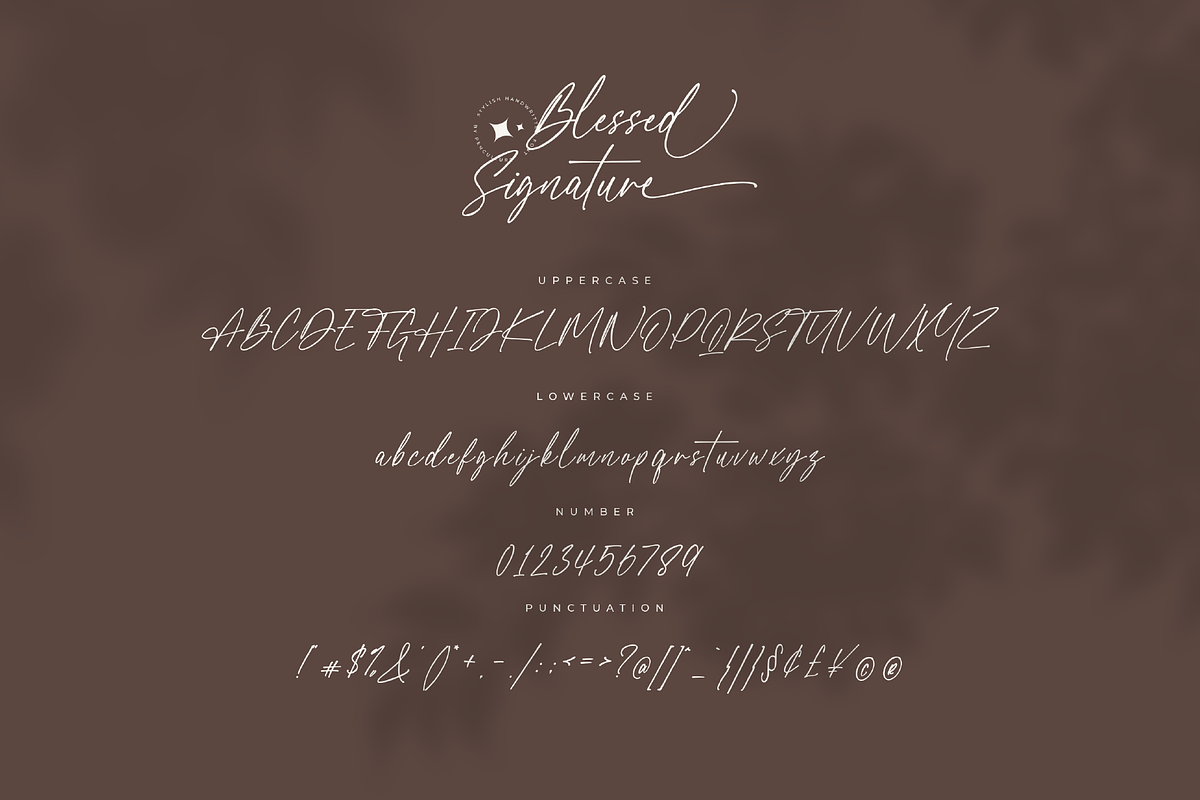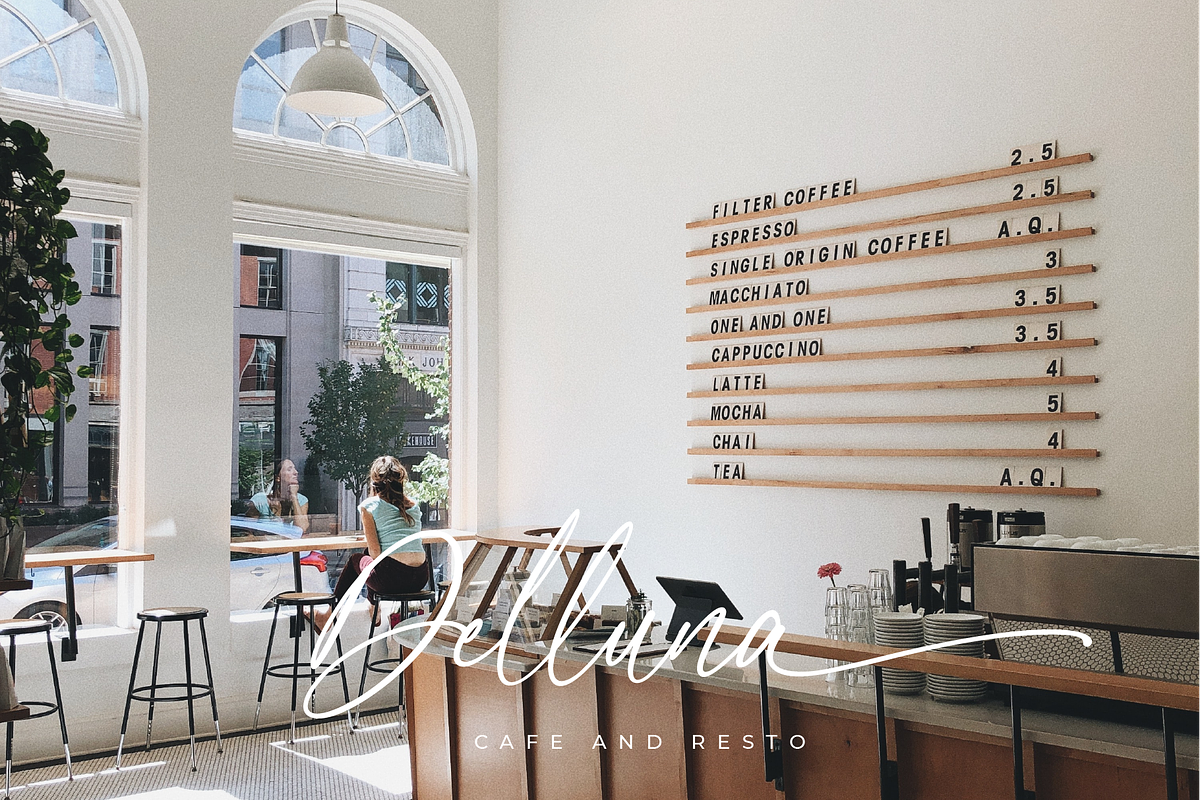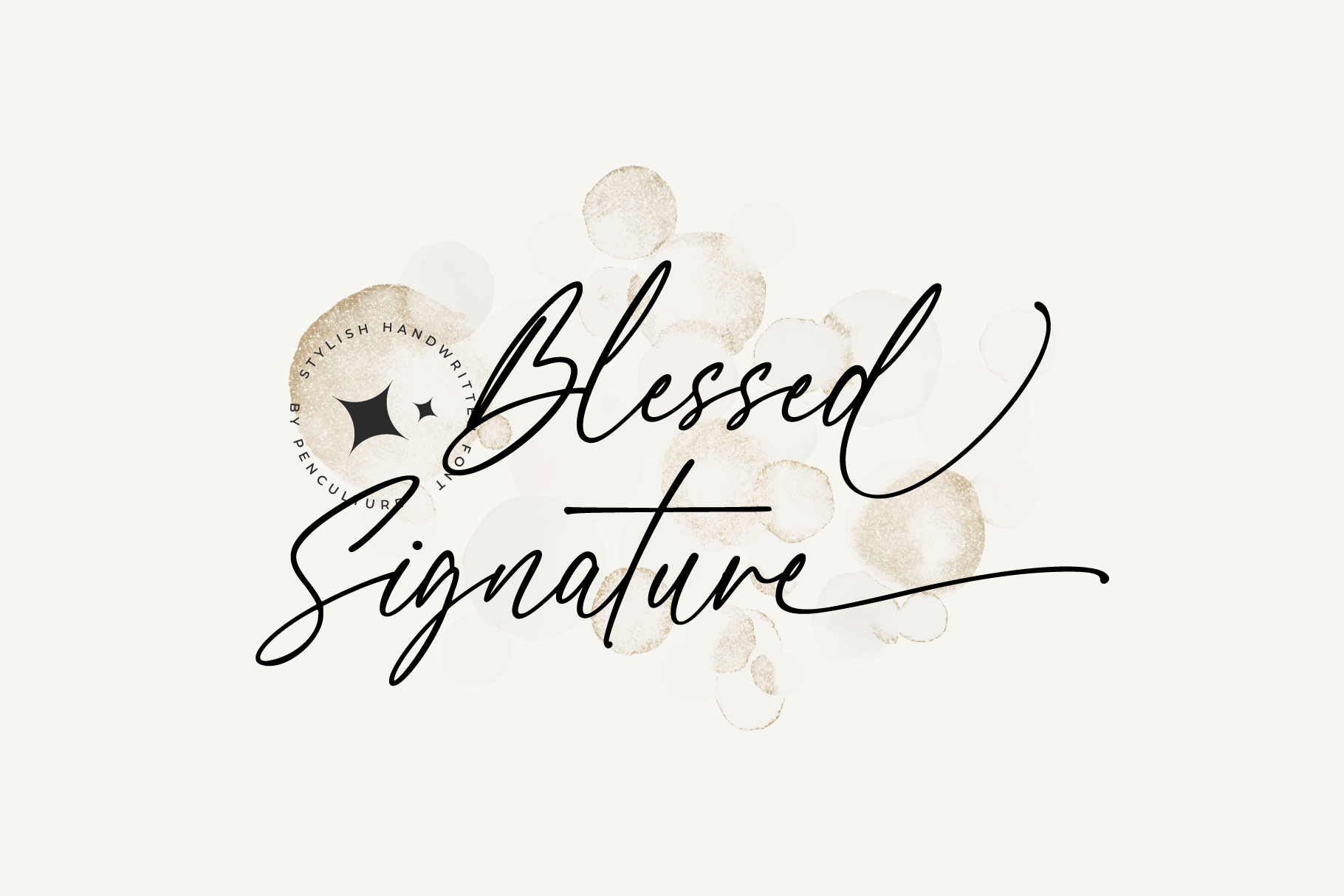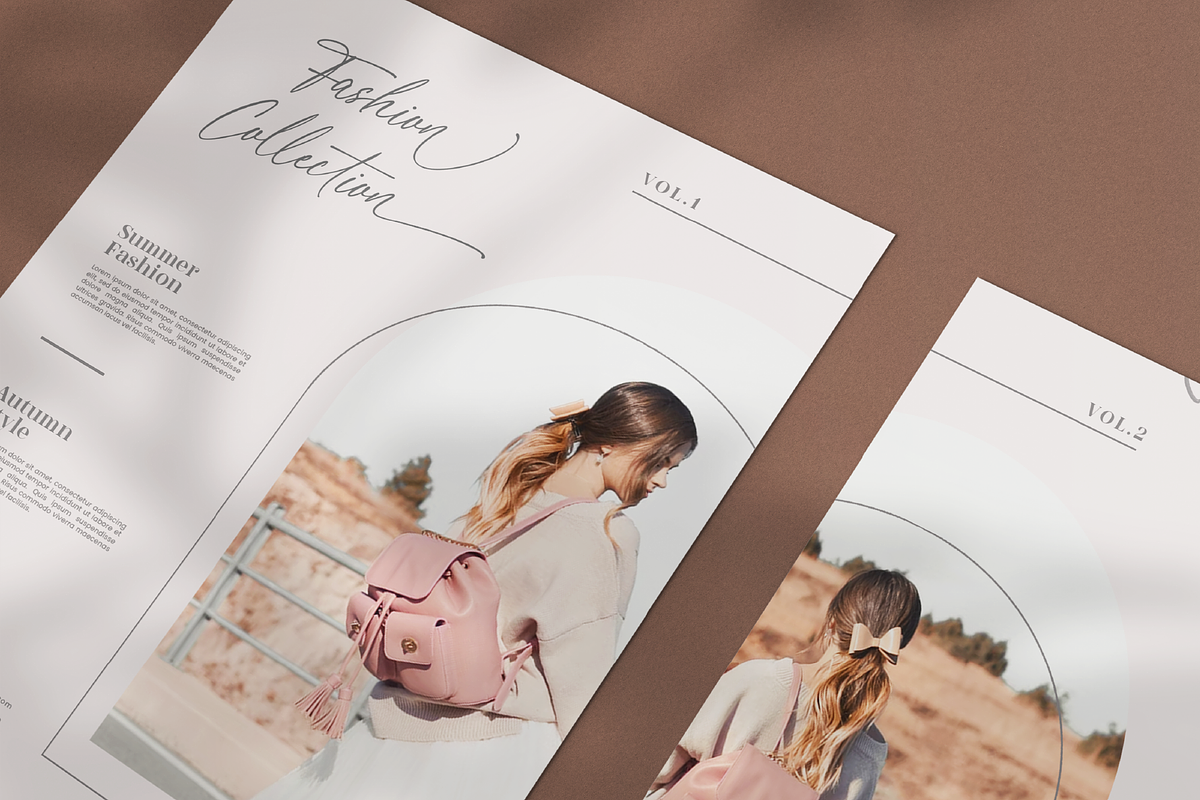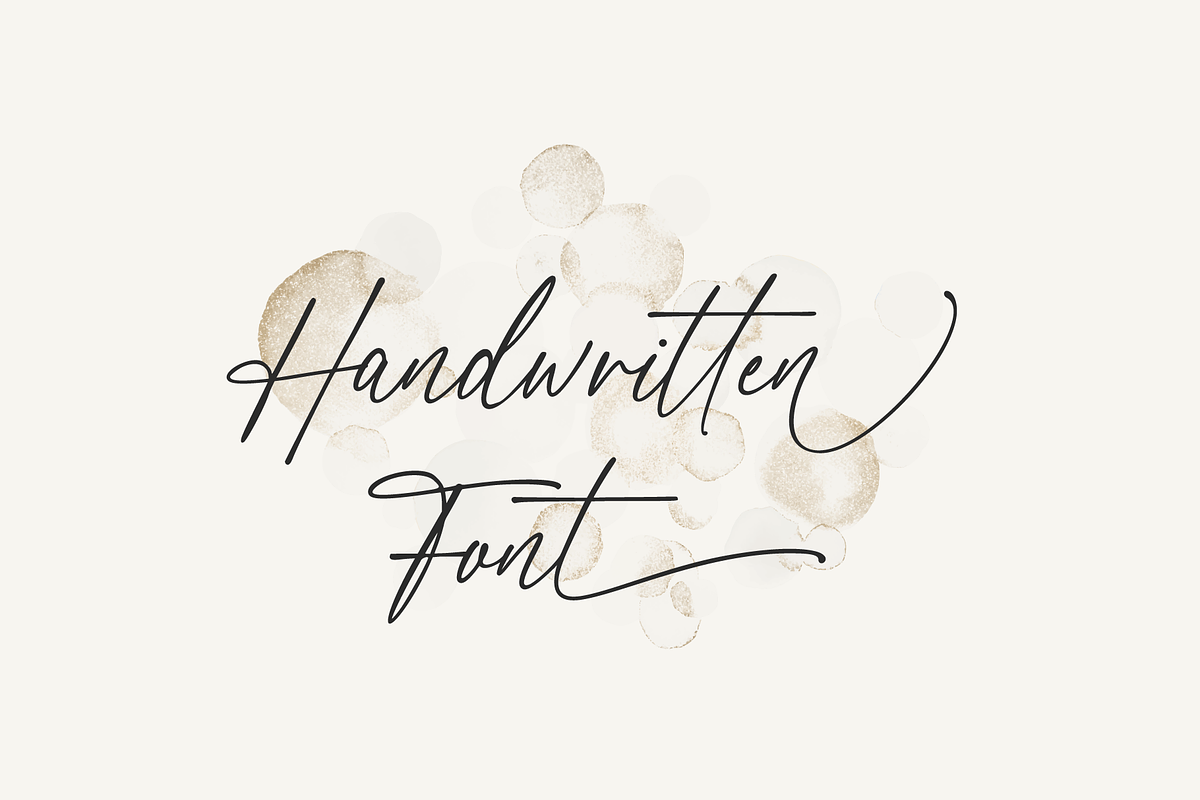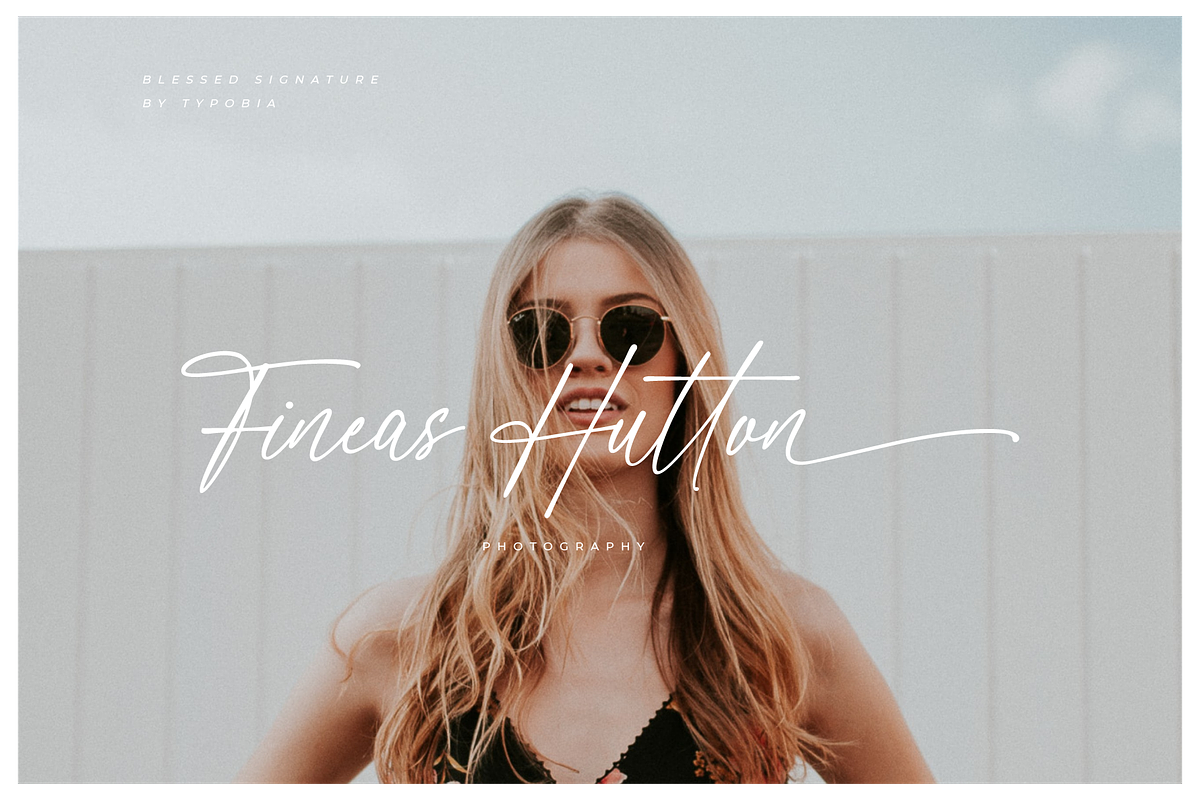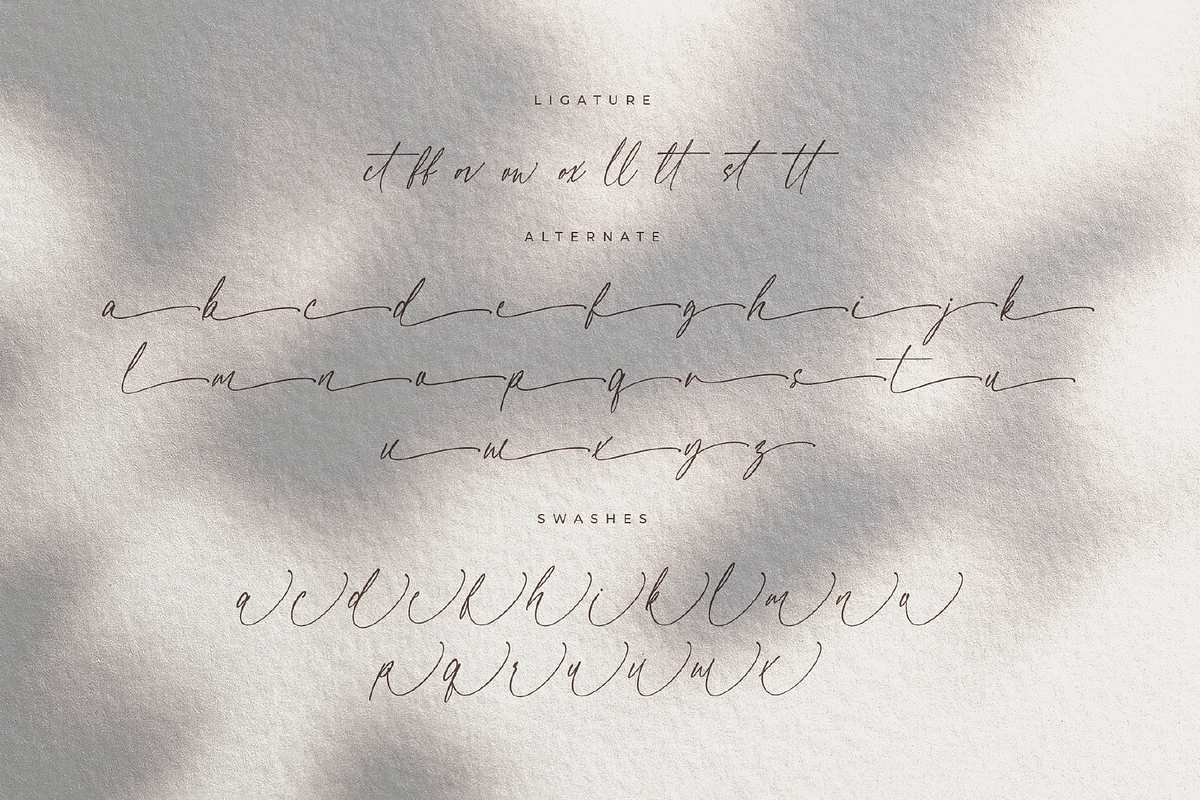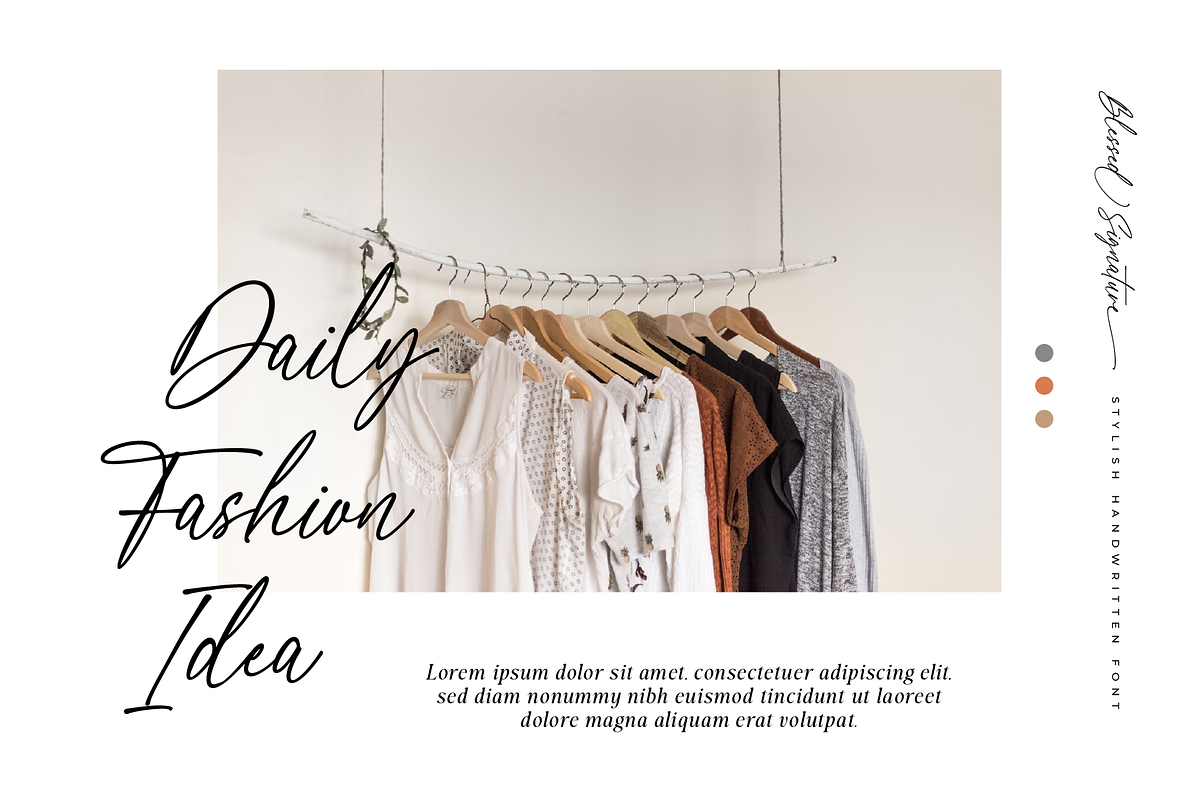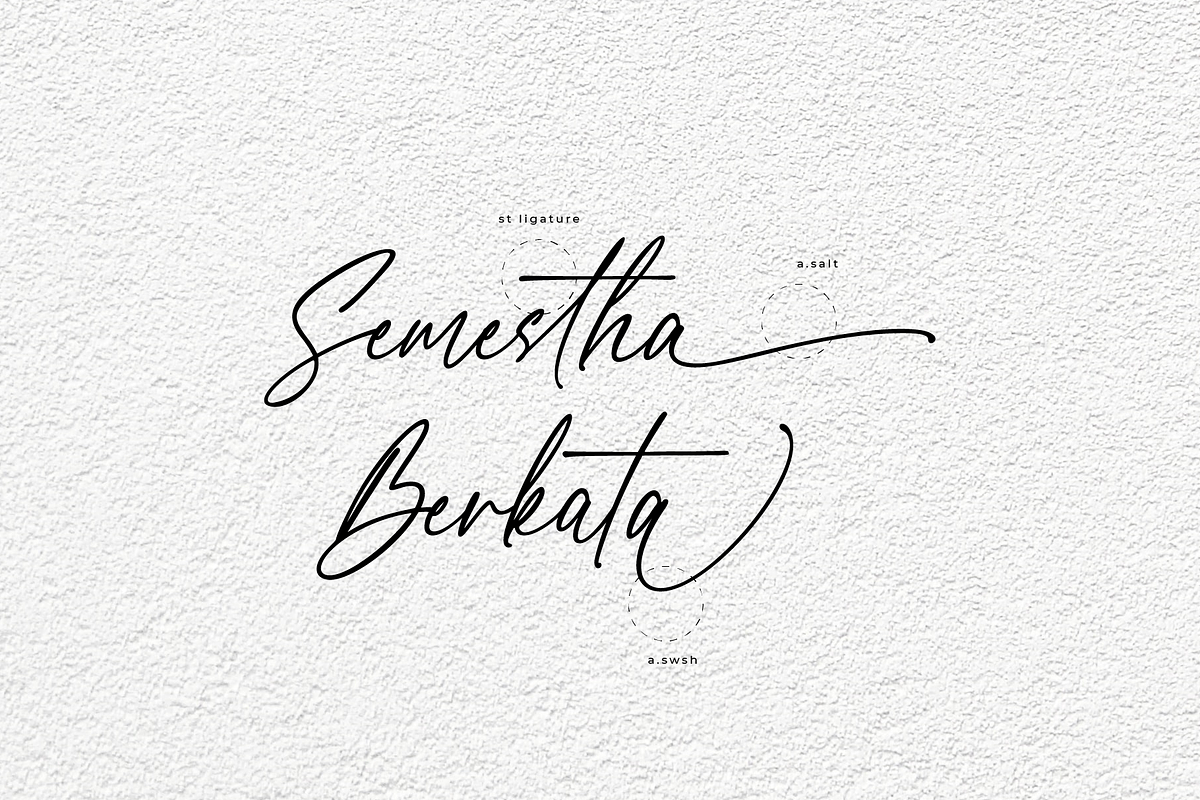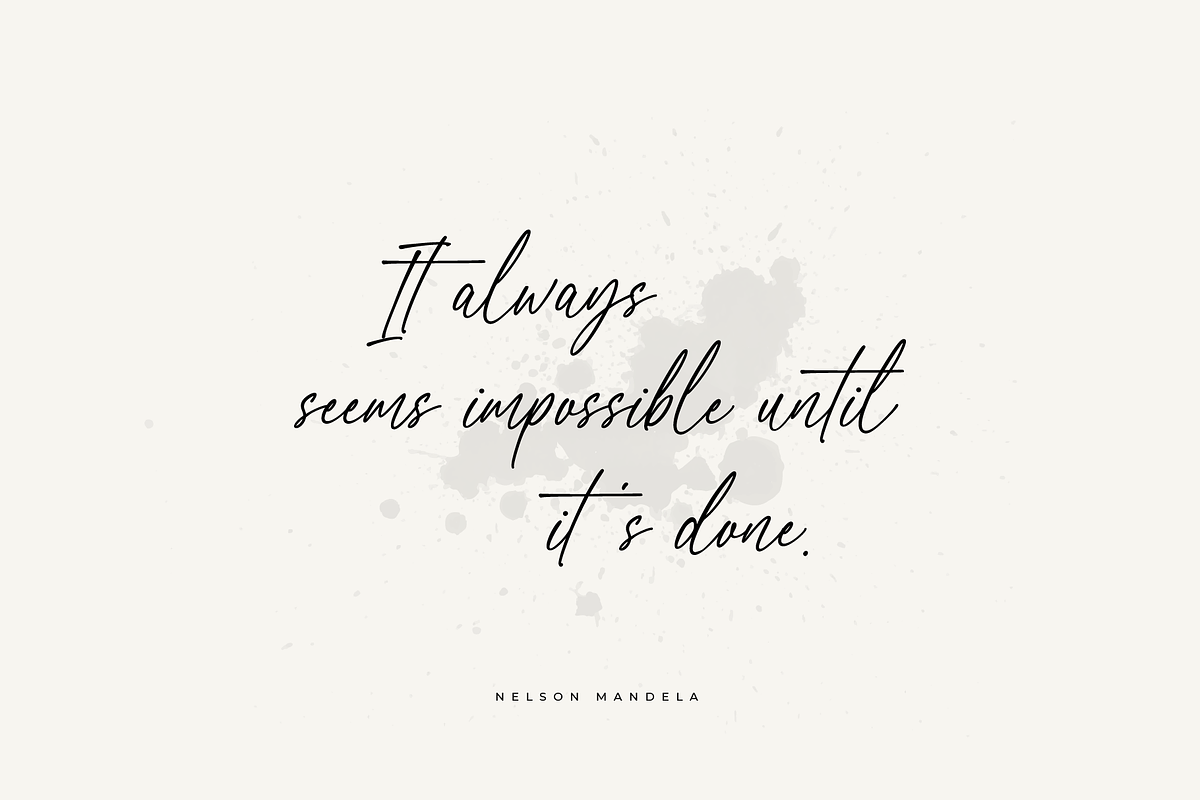
Blessed Signature Font
Proudly present Blessed Signature Font, A stylish handwritten font with lovely curve which will be perfect for branding, wedding invitations, websites and more.
Blessed Signature comes with a full set of uppercase and lowercase, number and punctuation, and 60 stylish ligatures + alternate. There are 2 types of ending swashes that you can use and combine to make your design project more interesting.